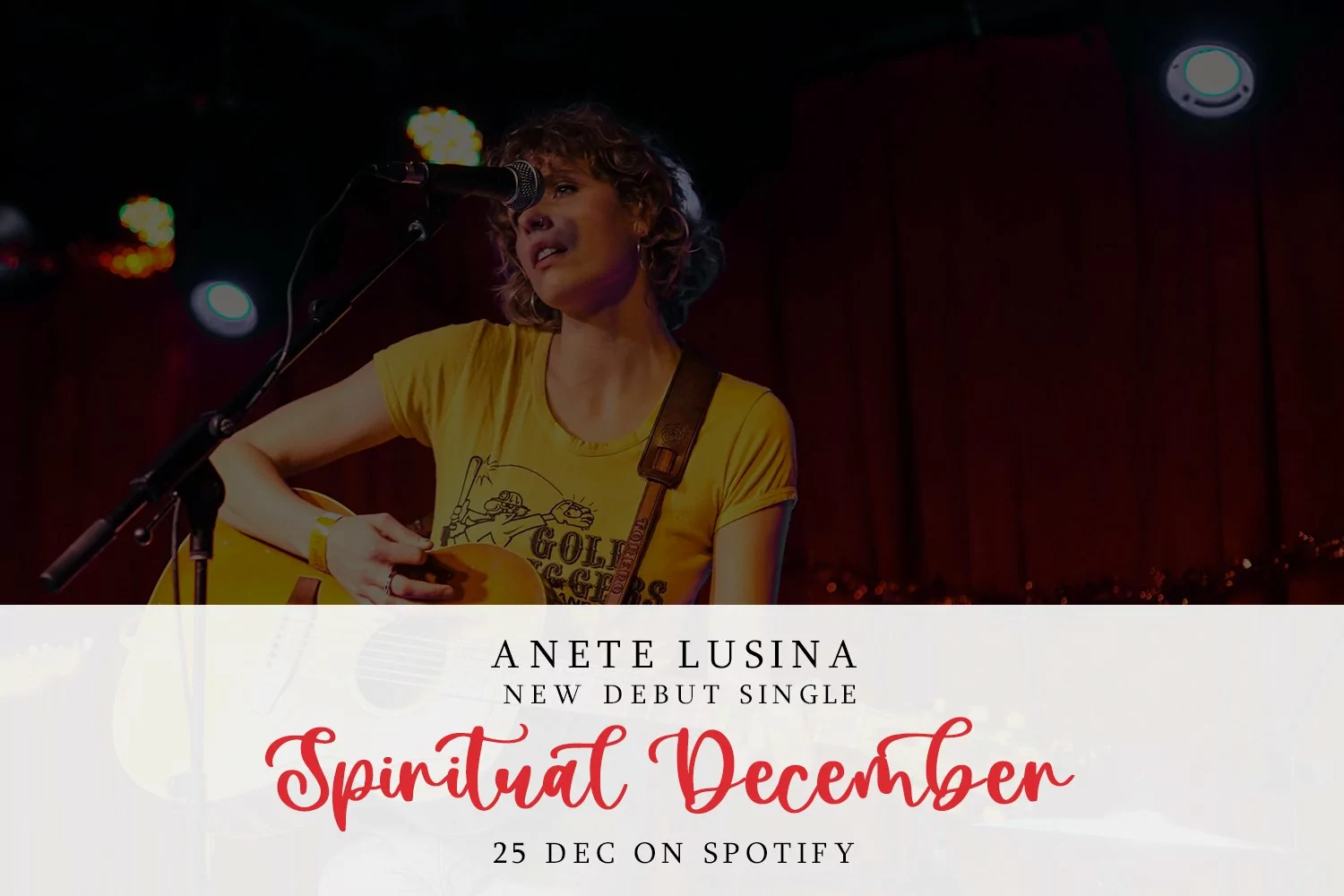
Pretty Christmas - Cute Typeface Font that contain lowercase, uppercase, symbol, and also support multi language. There’s a lot ligatures in this font. This Font also comes with ligatures, alternates and many more. this font suitable for fashion, branding, catalog and other design what you want.